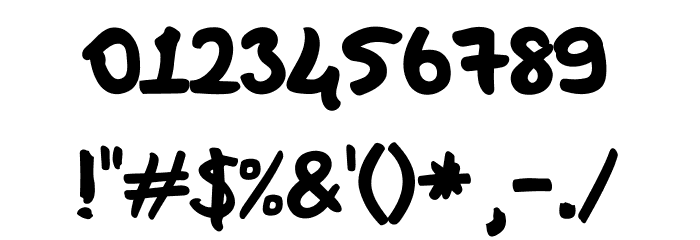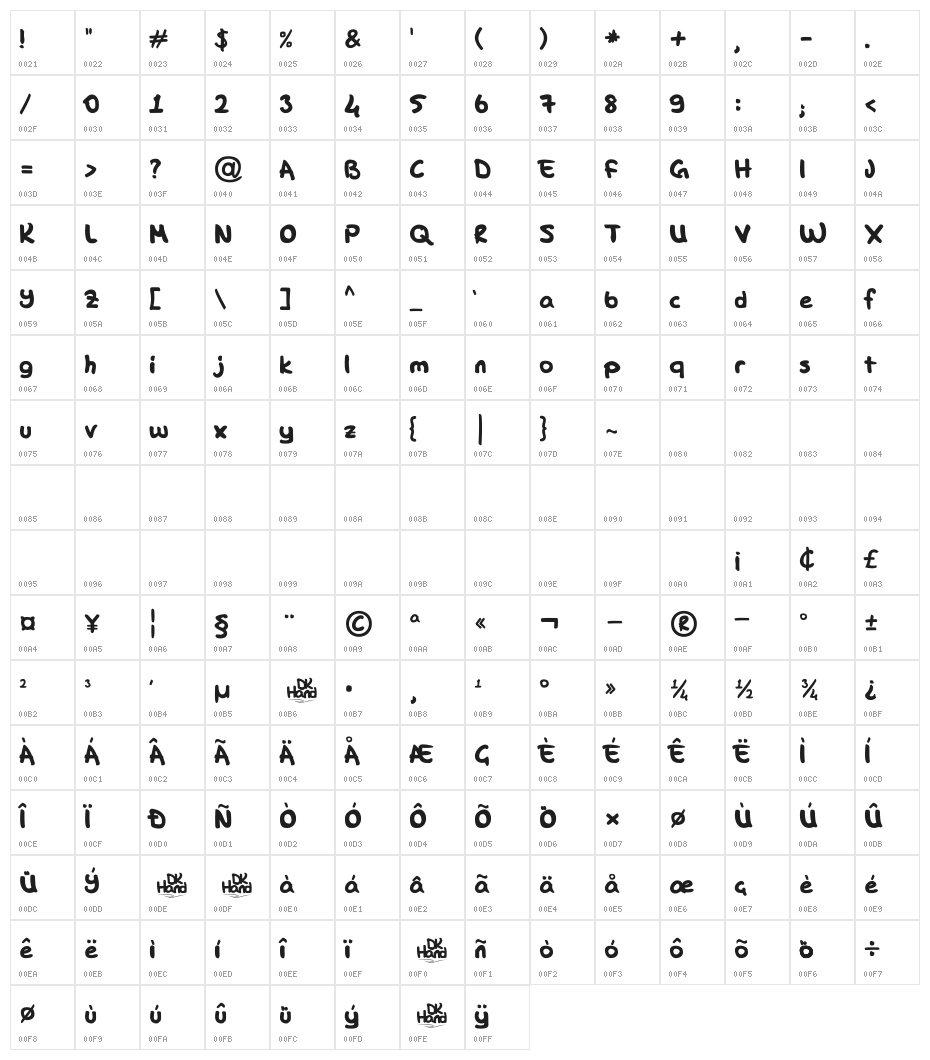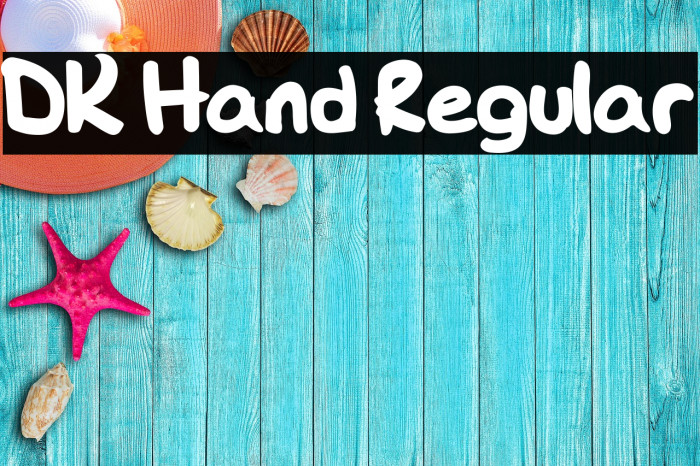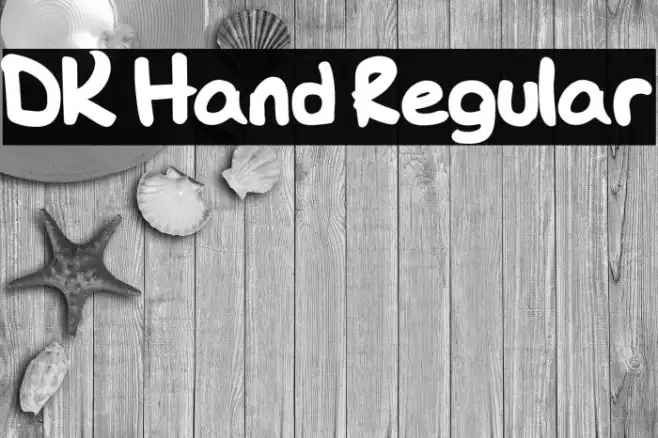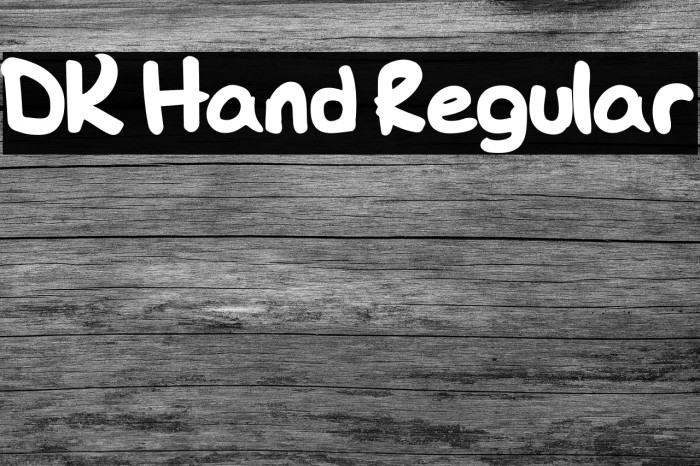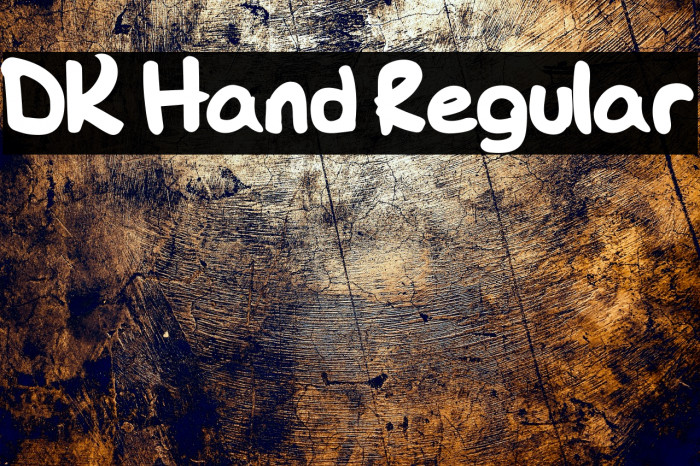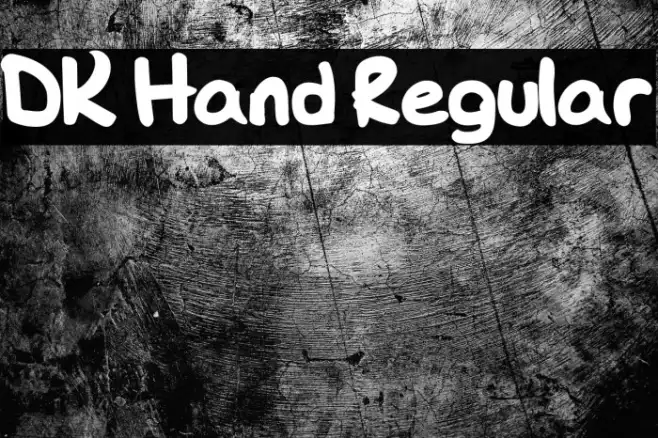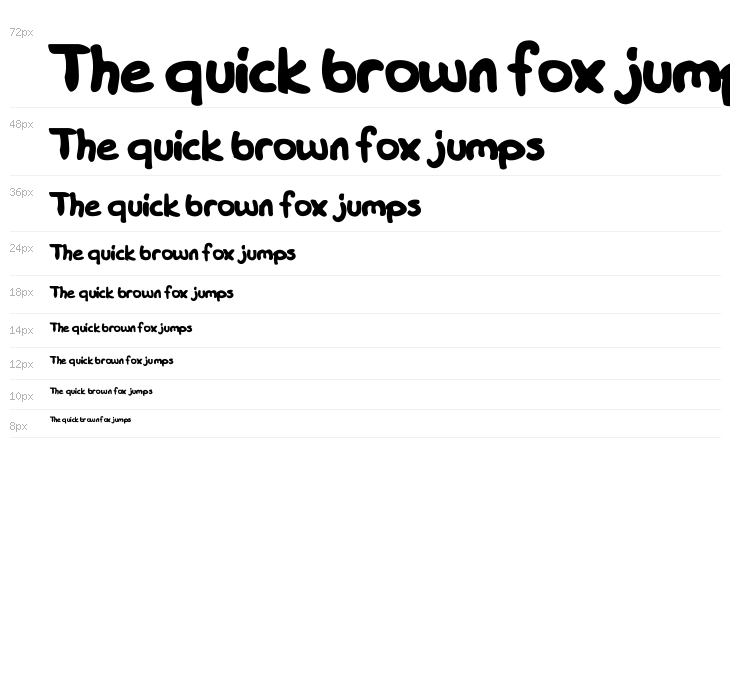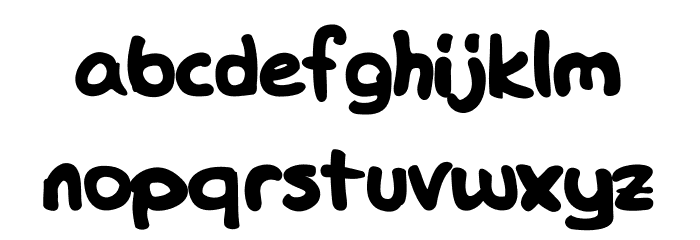
DK Hand Regular Font
DK Hand Regular Description
This playful and bold font features a handwritten style with rounded edges and a casual, friendly appearance. The characters are slightly irregular, adding a touch of whimsy and personality. The uppercase and lowercase letters maintain a consistent weight, while the numerals and special characters integrate seamlessly into the overall design. The font's thick strokes and smooth curves make it highly legible, even at smaller sizes, while its unique style ensures it stands out in any context.
It's the hand written of D.K.
| Proposed Projects | Ideal for children's books, playful branding, greeting cards, and informal invitations. |